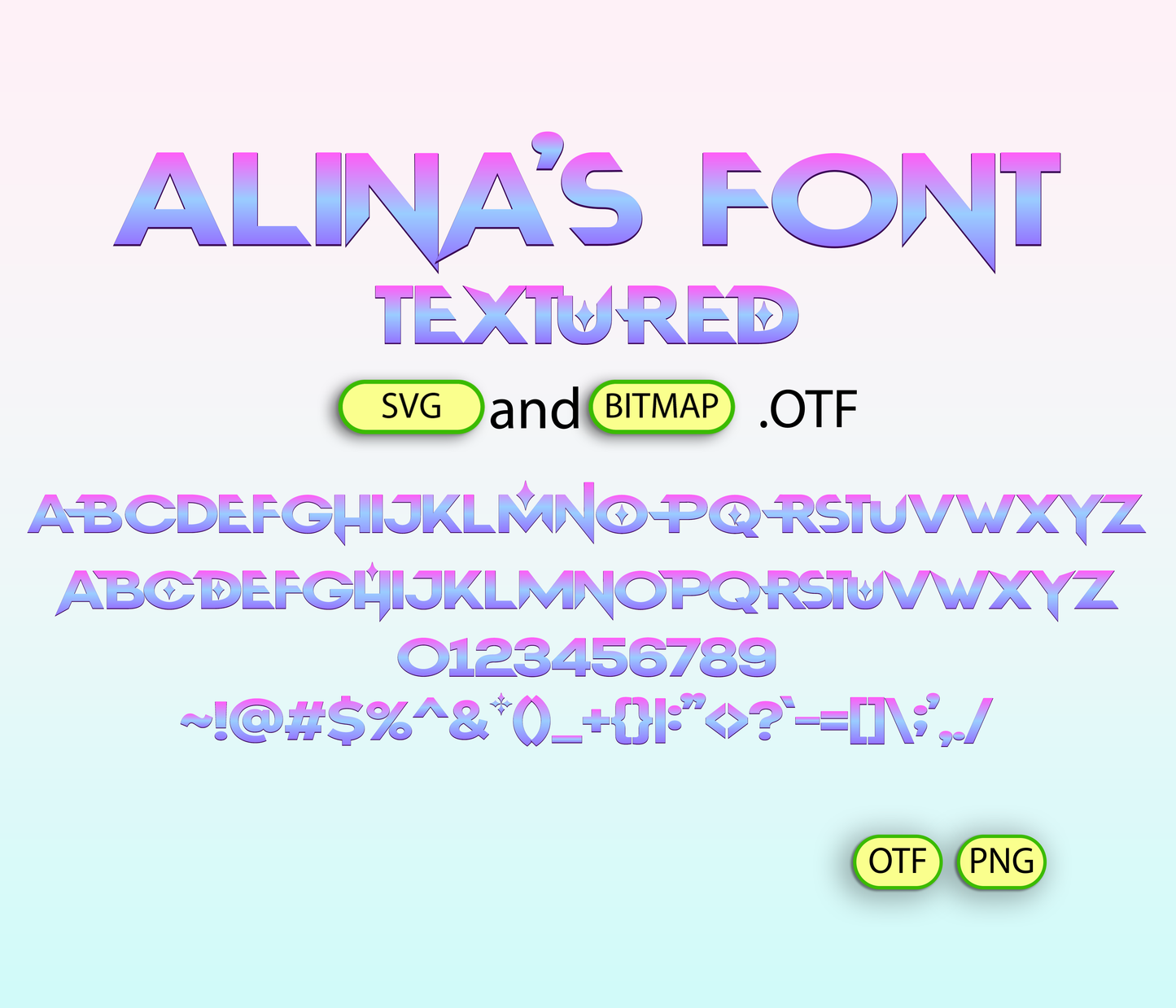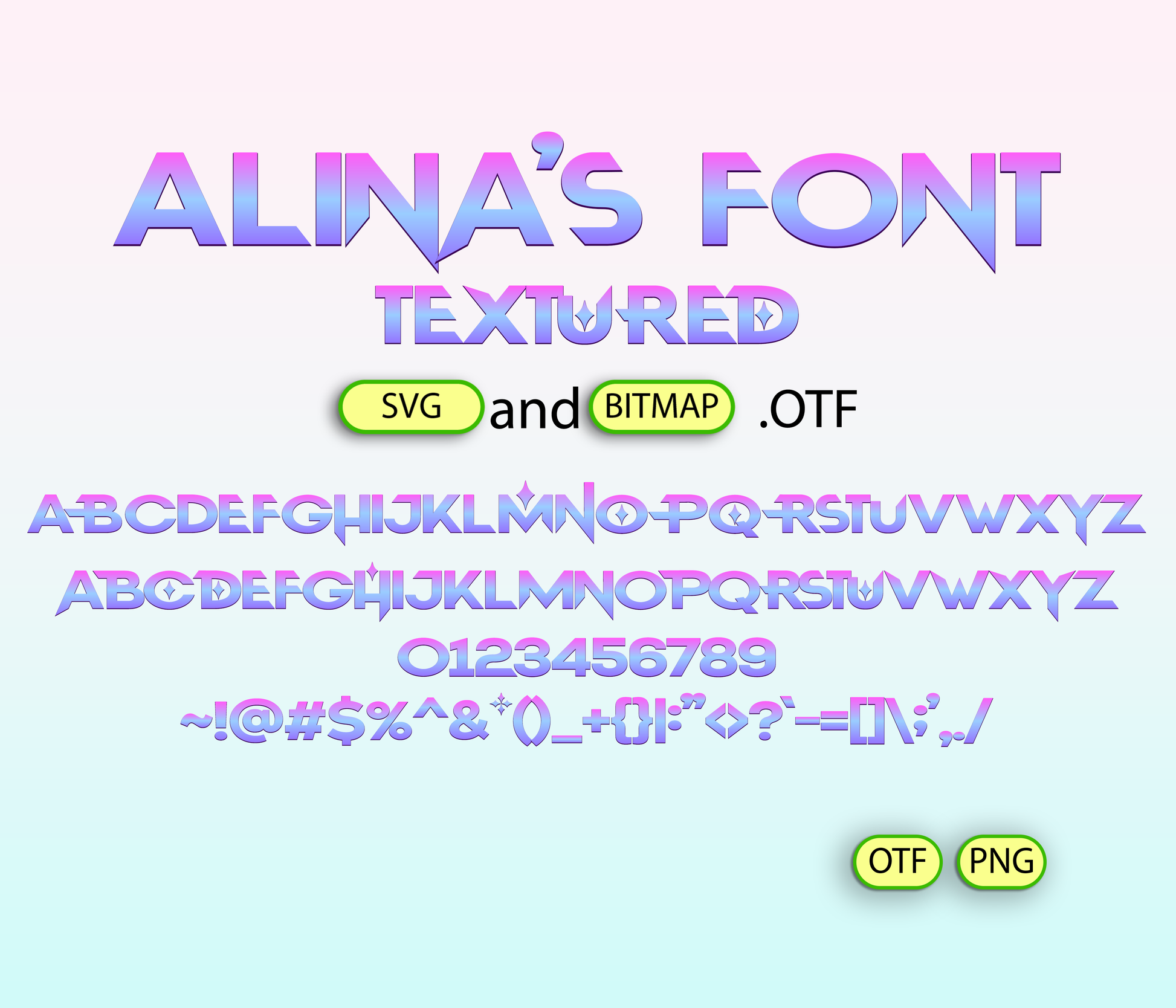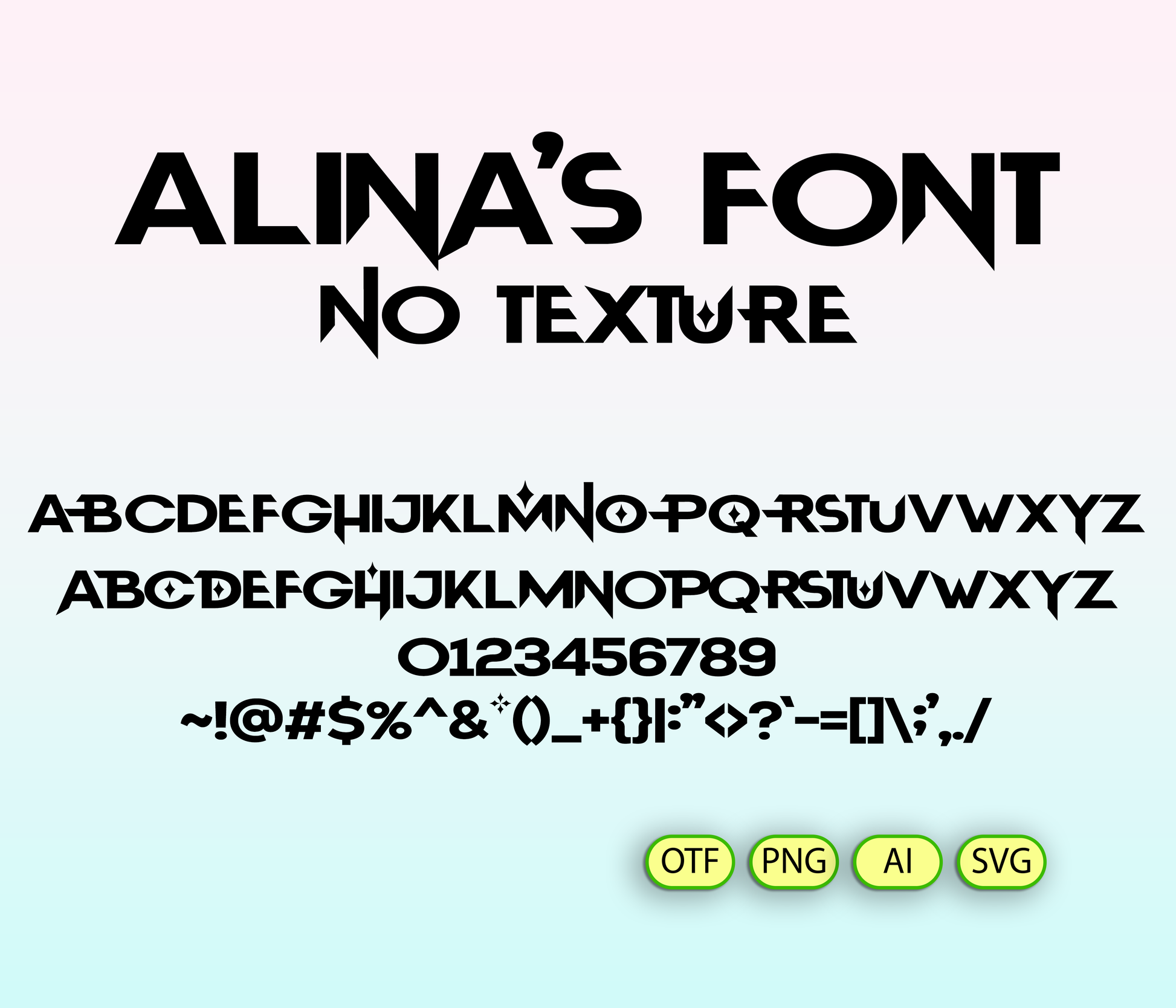
Seoul Spirit Warriors Font Textured
Seoul Spirit Warriors Font Dark Korean Beat
Step into the electrifying world of supernatural Korean entertainment with our Seoul Spirit Warriors font, capturing the essence of Korean wave culture meets occult battles. Perfect for Korean music fan events, supernatural themed parties, manhwa designers, and creative professionals, this font brings the dynamic, edgy energy of Korean pop culture with a dark mystical twist to your projects. Create striking fan art, concert-themed merchandise, or digital content with the bold, rebellious spirit of idol performers battling otherworldly forces.
Our Seoul Spirit Warriors font features sharp, angular letterforms with sleek modern edges reflecting the high-energy aesthetic of Korean wave culture mixed with supernatural elements. The characters blend contemporary Korean typography influences with gothic undertones, creating perfect fusion of pop culture and dark fantasy.
Ideal for:
- Korean Music Events: Create eye-catching invites, posters, and banners for fan meetings, concert viewing parties, and Korean culture themed gatherings
- Supernatural Design: Perfect for manhwa covers, webtoon promotions, and supernatural-themed party accessories that capture the intensity of paranormal adventures
- Digital Media: Enhance websites, blogs, and social media with dynamic headers and graphics that express Korean music energy and supernatural mystery
- Entertainment Content: Add authentic character to fan materials, concert designs, and promotional materials for Korean culture events
- Personal Projects: Bring Korean supernatural edge to scrapbooking, DIY crafts, and home decor inspired by the aesthetics of Korean pop meets dark fantasy